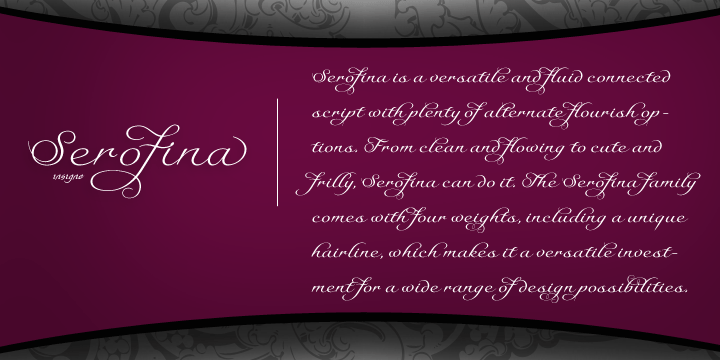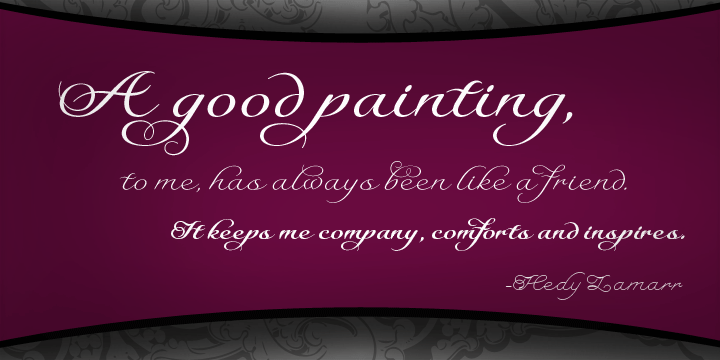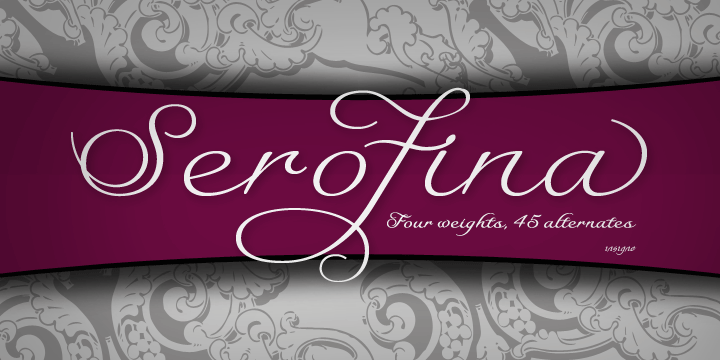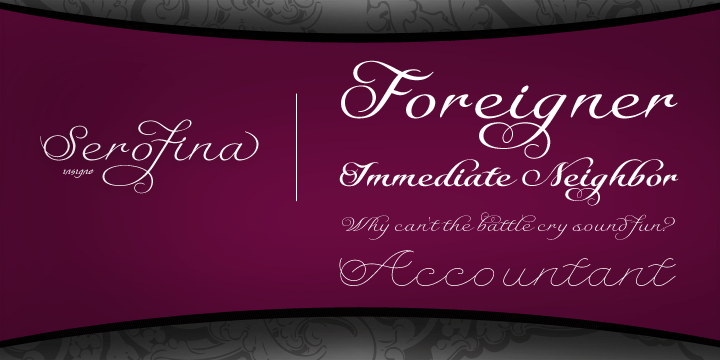
Serofina is a script font family. This typeface has four styles and was published by Insigne Design.
Serofina is an adaptable and fluid connected script with plenty of alternate flourish options. From clean and flowing to cute and frilly, Serofina can do it. The Serofina family comes with four weights, including a unique hairline, which makes it a versatile investment for a wide range of design possibilities.
All weights include the OpenType programming to automatically and seamlessly swap out the default characters for 45 alternate forms and 18 auto-replacing ligatures. These alternates can make the face appear to be more simplified, restrained or frilly. Serofina also includes seven ornaments and old-style numbers. Check out the sample images to see these features in action.
Serofina is a highly versatile script family and its range of weights make it perfect for whenever you need an expressive and original typeface.